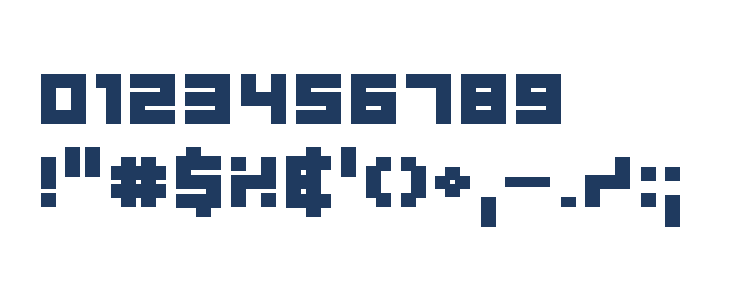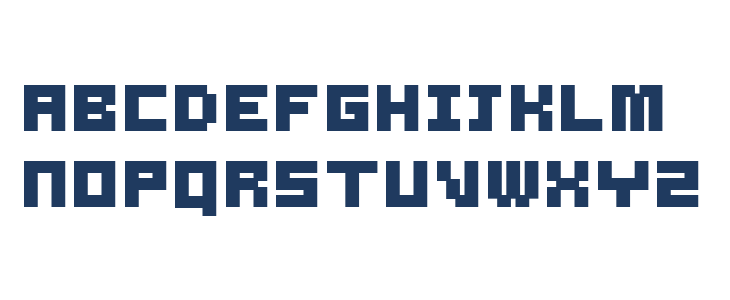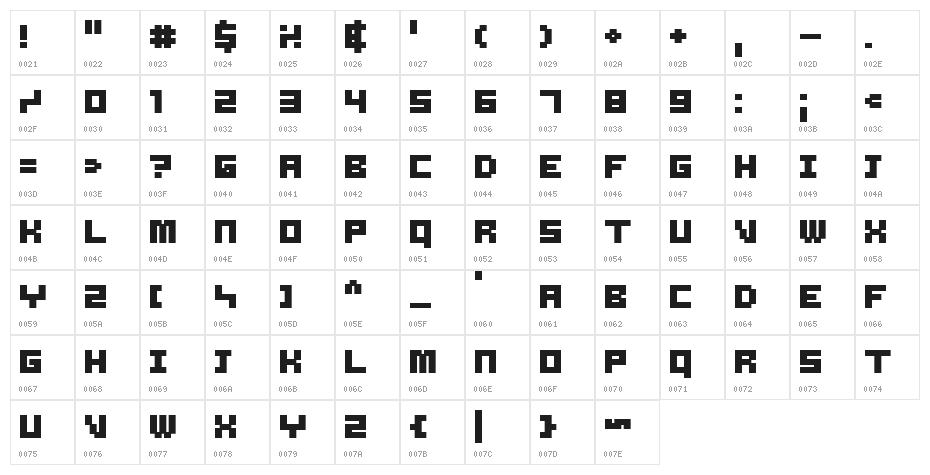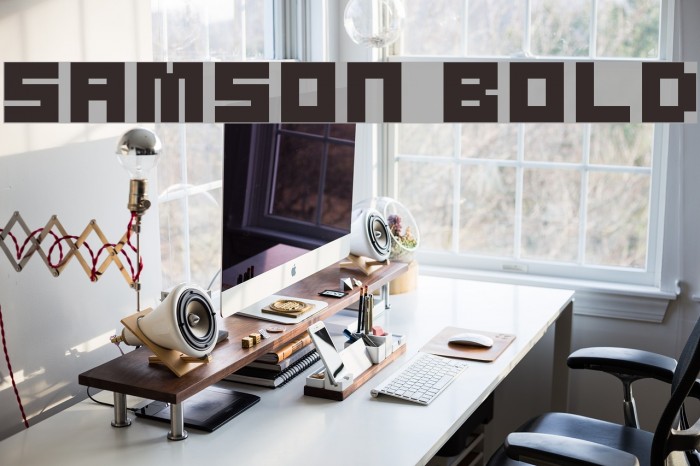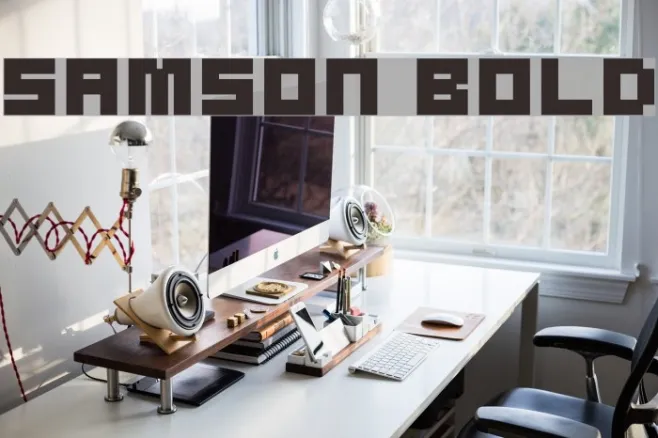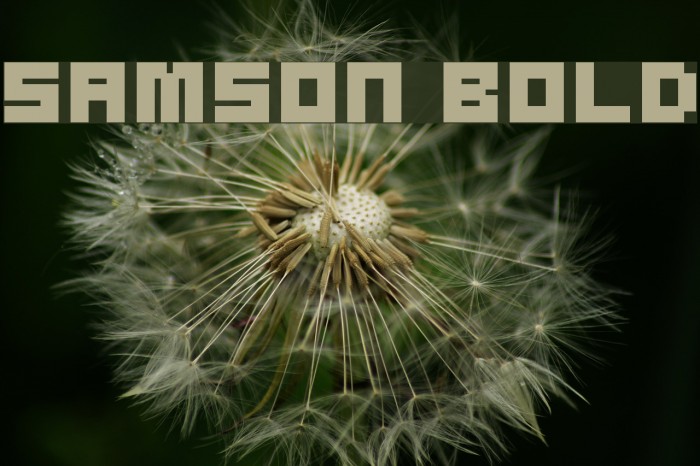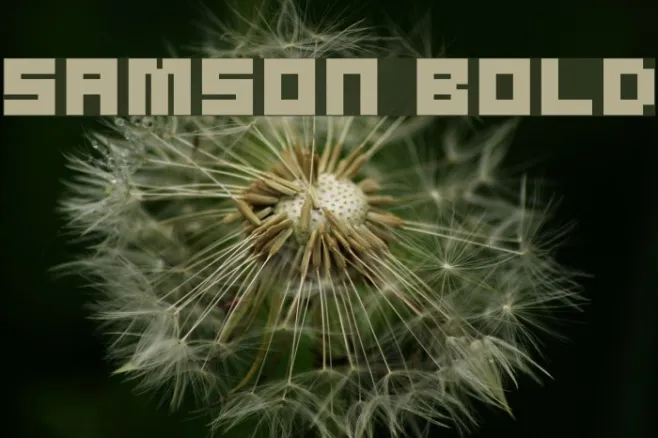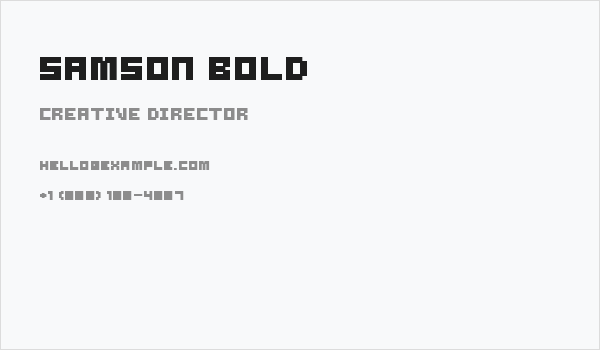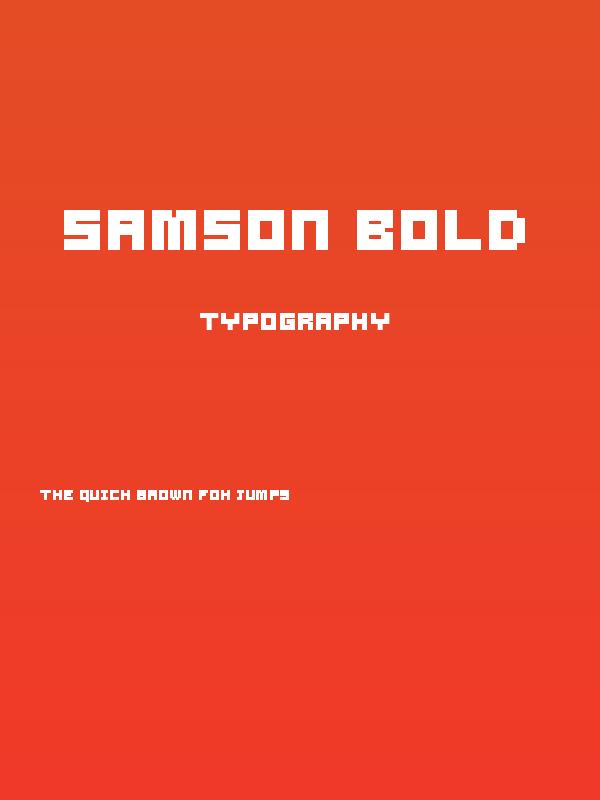
Samson Bold Font
This font is characterized by its bold, blocky, and geometric design, featuring uniform stroke widths and a strong, impactful presence. The characters are constructed with sharp angles and straight lines, giving it a digital or pixelated appearance reminiscent of early computer graphics. The uppercase and lowercase letters maintain a consistent height, contributing to its monospaced feel, while the numerals and special characters are designed to match the overall aesthetic. The font's style is both modern and retro, making it suitable for projects that require a bold statement or a tech-inspired look.
Overall StyleModern, Retro
Proposed ProjectsIdeal for video game design, tech branding, digital art projects, and retro-themed posters.